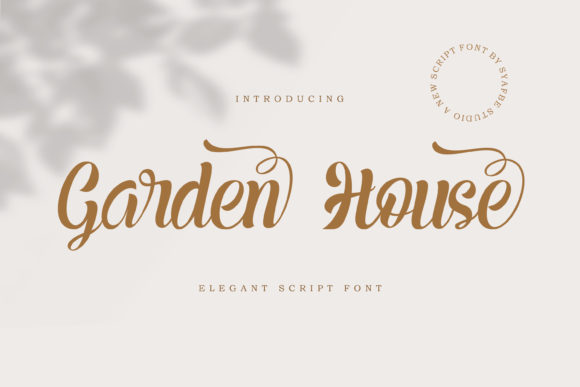
Welcome to the enchanting world of Garden House Font - a captivating, bold, and uniquely designed script font that exudes elegance. The Garden House Font collection boasts a graceful handwritten style that enchants every occasion and effortlessly elevates your creative projects to new heights. This exquisite font family is meticulously engineered with a richness of characters and meticulous attention to detail, ensuring a seamless user experience for designers and creatives alike.
Your projects will blossom with Garden House Font's enchanting personality. Its swirling strokes and elegant curves add a touch of magic to wedding invitations, greeting cards, and logos, while its sophisticated flair lends an air of distinction to branding, social media posts, and marketing campaigns. Its versatility extends to enchanting invitations, captivating posters, and alluring social media graphics, casting a spell of allure on all your endeavors.
Immerse yourself in the boundless creativity of Garden House Font. With its beautiful glyphs and effortless swashes, you'll be able to conjure up eye-catching headlines, captivating social media posts, and captivating logos that exude sophistication and style. This font is meticulously PUA encoded, granting you unfettered access to a wealth of glyphs and swashes with unmatched ease.
With Garden House Font at your creative disposal, endless possibilities unfold before you. Experience the thrill of creating breathtaking designs that resonate with your audience and leave a lasting impression. Whether you're a seasoned designer or just starting out, Garden House Font empowers you to unleash your imagination and bring your visions to life.
Join the legion of creatives who have unlocked the power of Garden House Font and transformed their projects into captivating works of art. Embrace the allure of Garden House Font and watch as it transforms your creative dreams into reality. Experience the magic of Garden House Font today, and let your designs bloom with unmatched elegance.